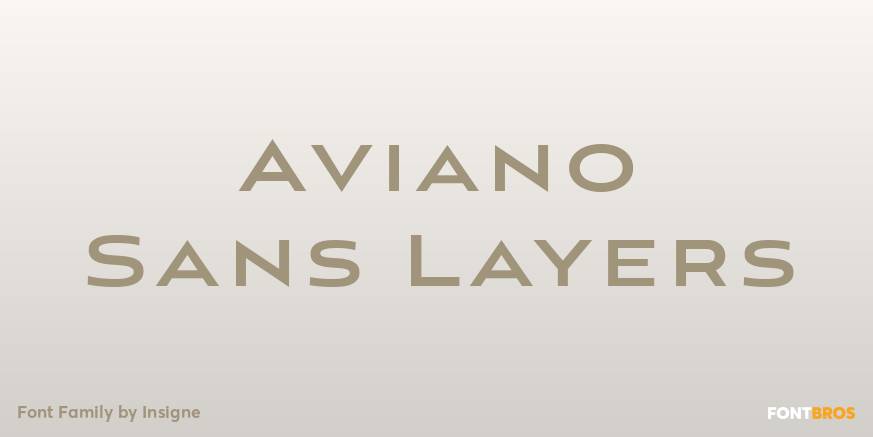
Aviano Sans Layers
About Aviano Sans Layers
With this charismatic new type system, the possibilities are as large as your vision behind them. Achieve the impact you\’re looking for by layering the different fonts and colorations for a custom, hand-drawn look that likes to be noticed. Play around…